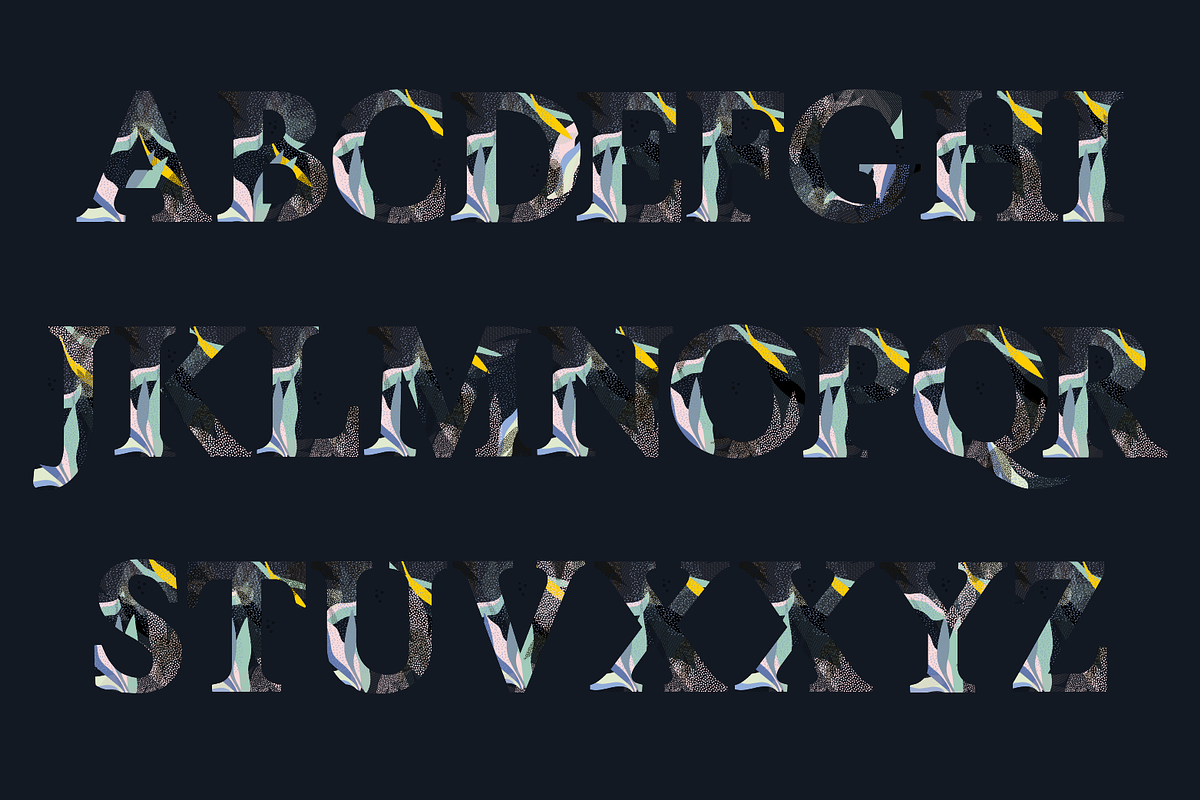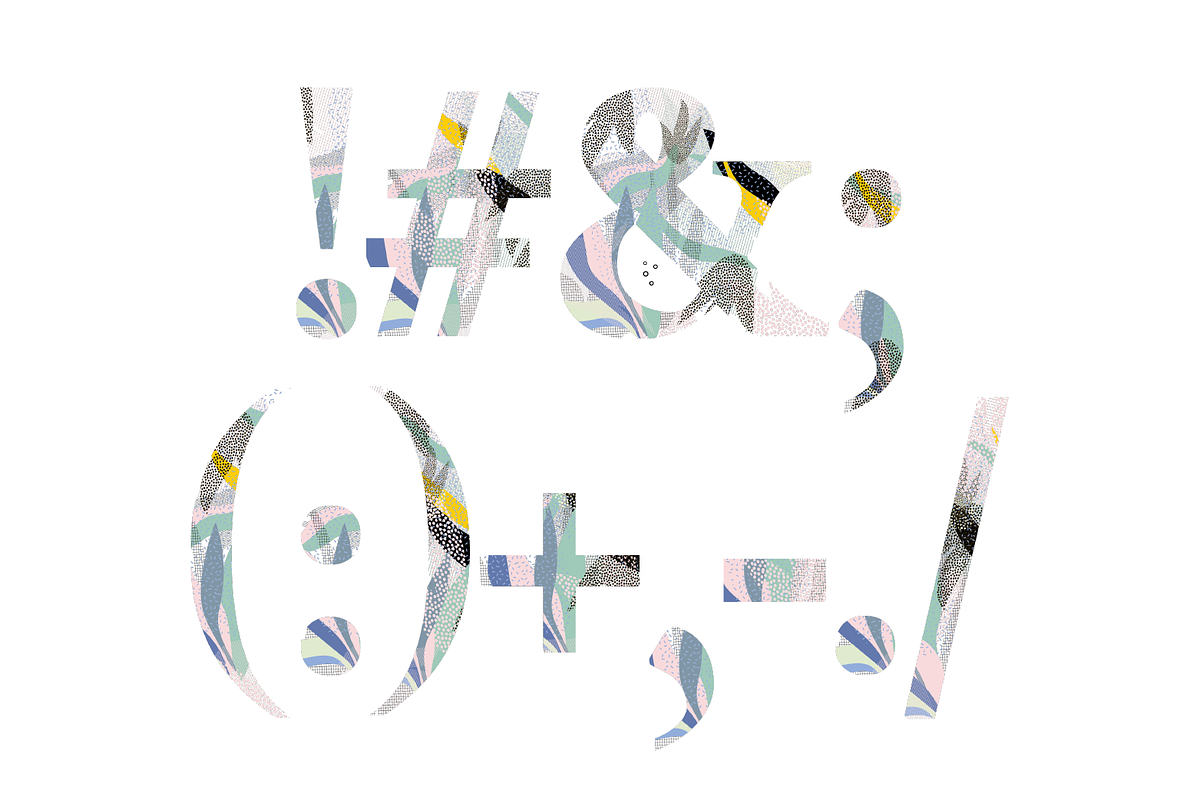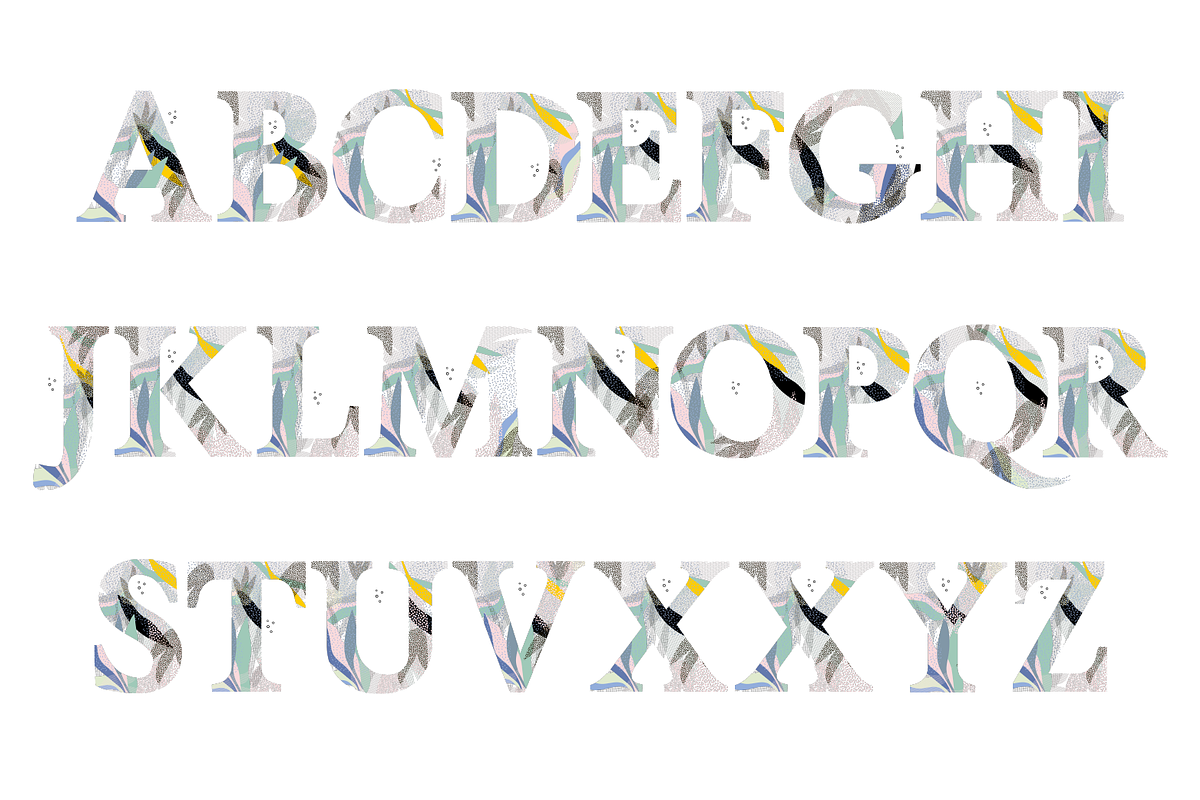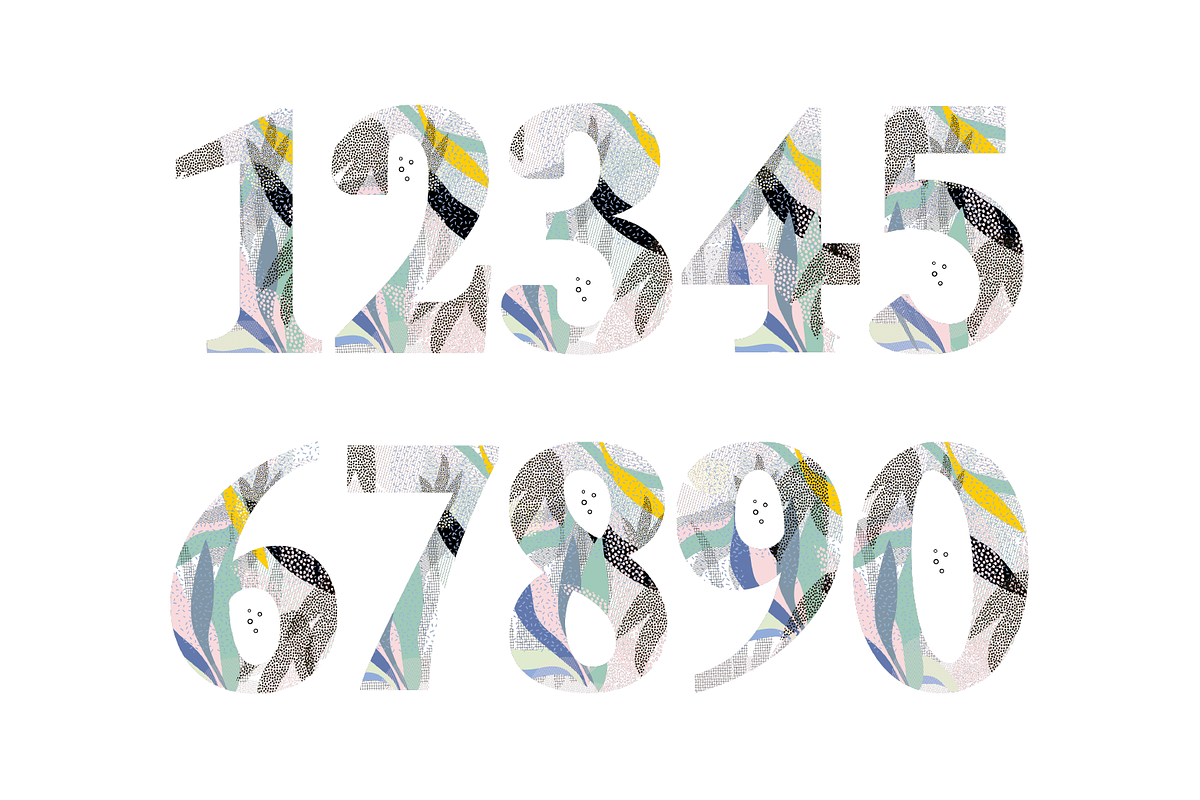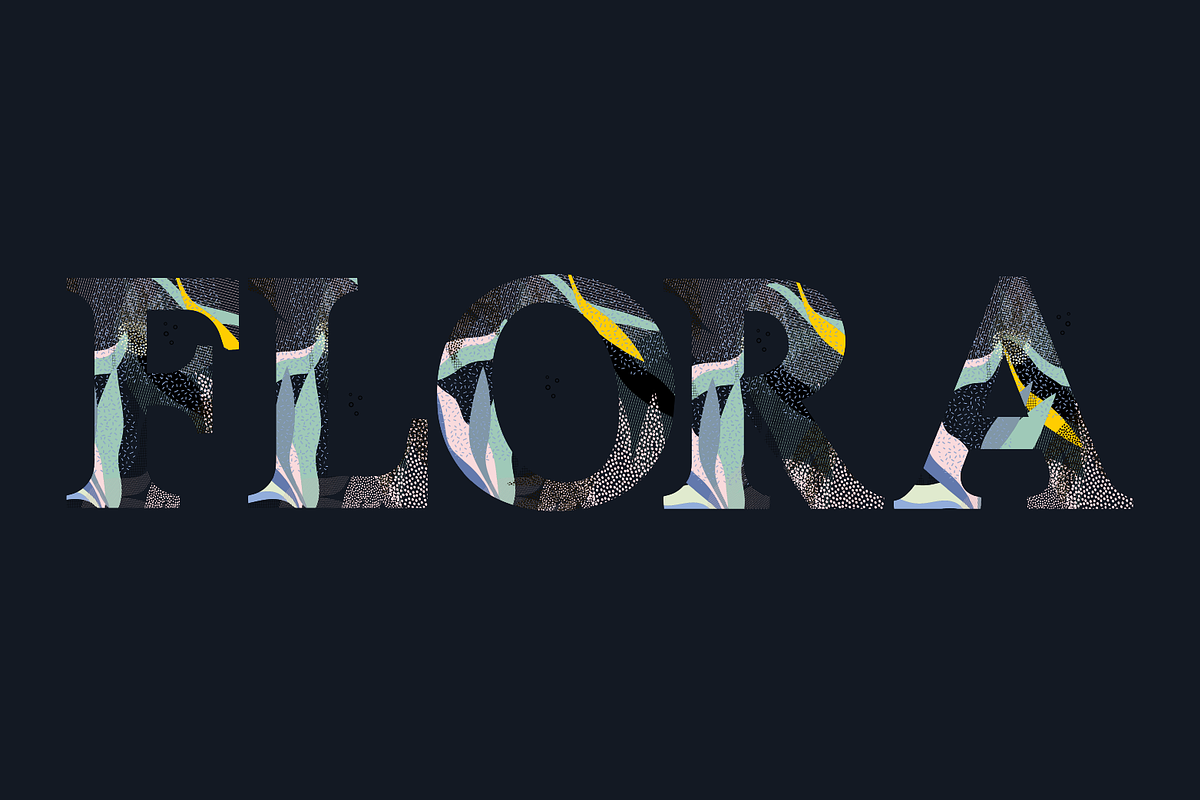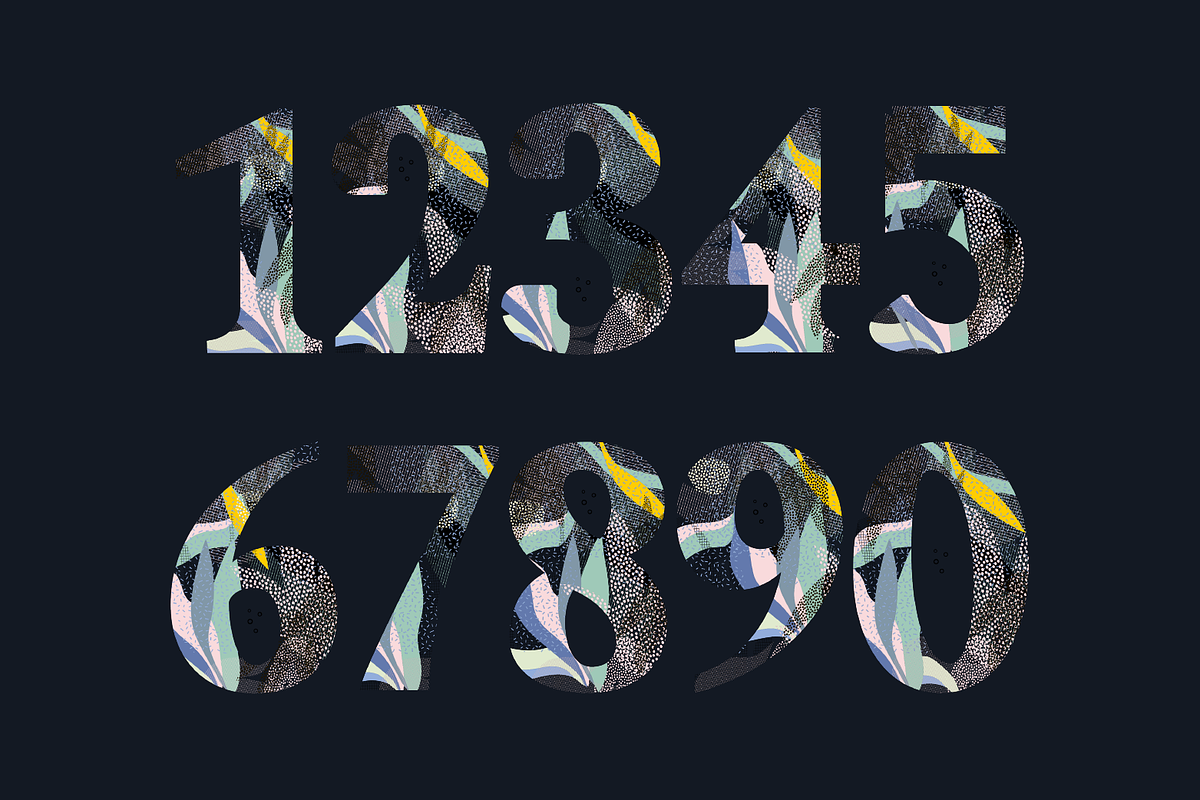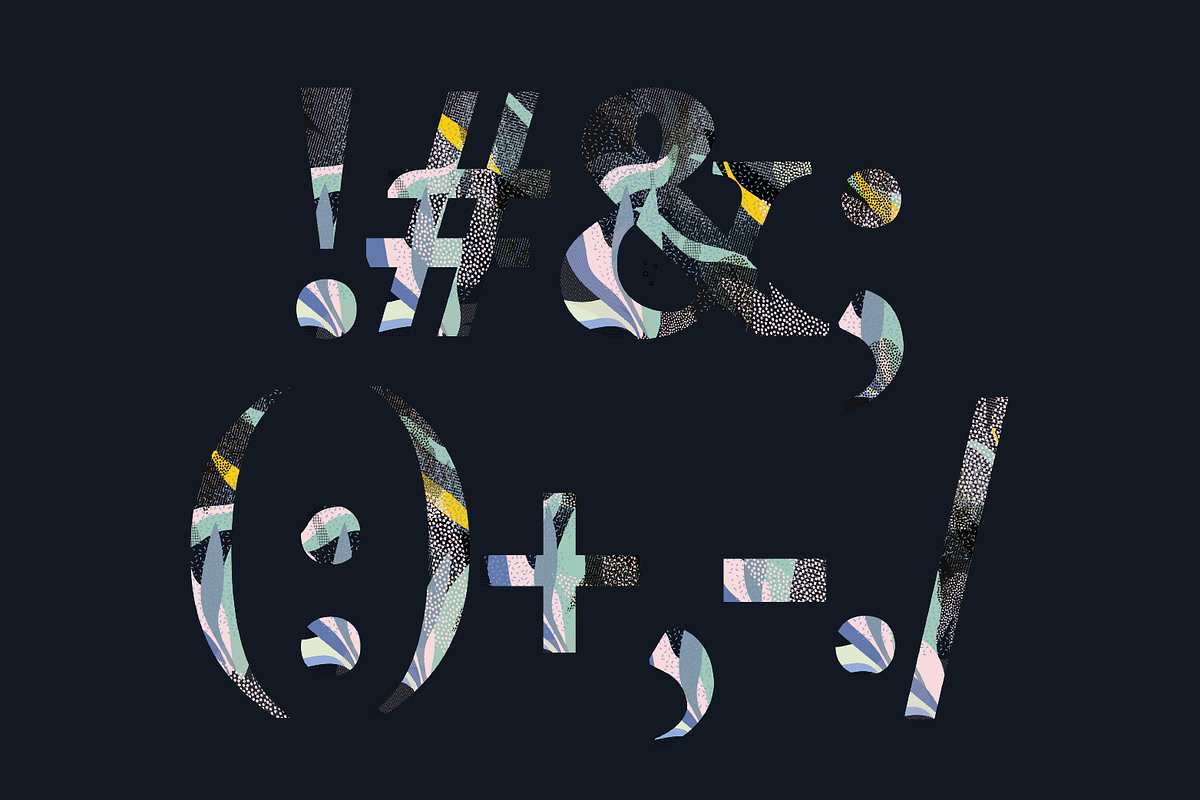
Flora Font
Beautiful typography with botanical style to give color and magic to all your designs.
Flora Font by yaisalinas fits naturally into Branding, posters, packaging, typography.